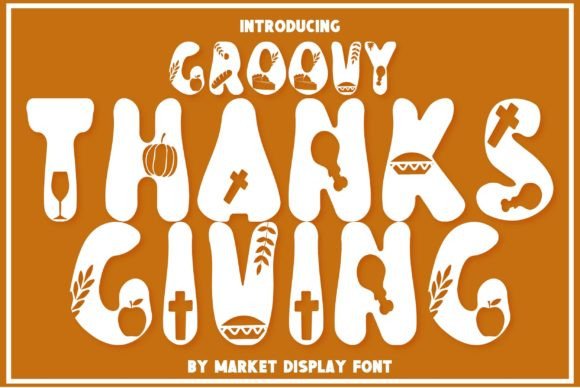
Welcome to the world of Groovy Thanksgiving, a decorative font family that will infuse your designs with a festive and vibrant spirit.
Picture this: you're working on a Thanksgiving-themed project, be it a heartwarming greeting card, an eye-catching poster, or an inviting social media post. You want your message to resonate, to capture the essence of the holiday's cheer and warmth. That's where Groovy Thanksgiving steps in, ready to turn your creative vision into a visual feast.
Crafted by the talented Phongsakon Phonkhammak, this font family exudes a bold and chunky charm that demands attention. Its letters, brimming with character, dance across the page like joyful pilgrims celebrating the harvest's bounty. The festive flair of Groovy Thanksgiving is undeniable, a perfect match for projects that call for a touch of playful exuberance.
But don't let its playful nature fool you. Groovy Thanksgiving is also a versatile performer, adapting seamlessly to a variety of design styles. Whether you're crafting a whimsical invitation, a rustic menu, or a vibrant website banner, this font family will rise to the occasion, adding a touch of cheer and sophistication.
So why settle for ordinary fonts when you can embrace the extraordinary? Let Groovy Thanksgiving be your creative companion, transforming your designs into captivating expressions of the Thanksgiving spirit. Its bold strokes and cheerful demeanor will add a touch of magic to your projects, leaving a lasting impression on your audience.
As you embark on your creative journey with Groovy Thanksgiving, you'll discover a font family that's more than just a collection of letters; it's an invitation to let your imagination soar, to create designs that capture the essence of Thanksgiving's joyous spirit. Embrace the bold, embrace the festive, and let Groovy Thanksgiving guide you towards design excellence.